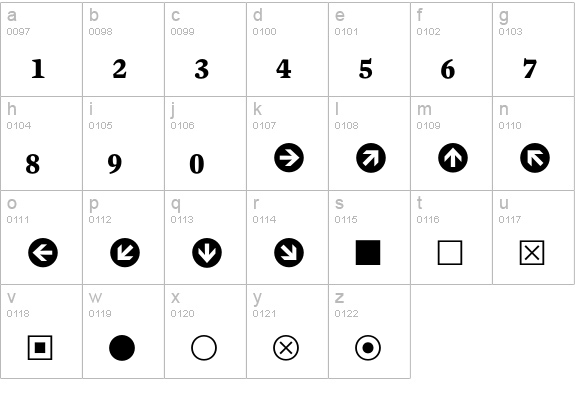
Mercury Numeric G1 Bold is a strong, high-contrast variant in the Mercury typeface family \xE2\x80\x94 well suited to headlines, attention-grabbing titles, and strong calls-to-action.
Mercury Numeric G1 Bold font is a modern and versatile typeface that exudes confidence and professionalism. With its bold and striking design, this font is perfect for making a bold statement in your projects. Whether you're designing a poster, branding materials, or a website, Mercury Numeric G1 Bold font is sure to make a lasting impression. The best part? Mercury Numeric G1 Bold font is available for free download at FontsMarket.com. Simply head over to the website and grab this amazing font to elevate your designs to the next level. Don't miss out on the opportunity to add this sleek and impactful font to your collection today!